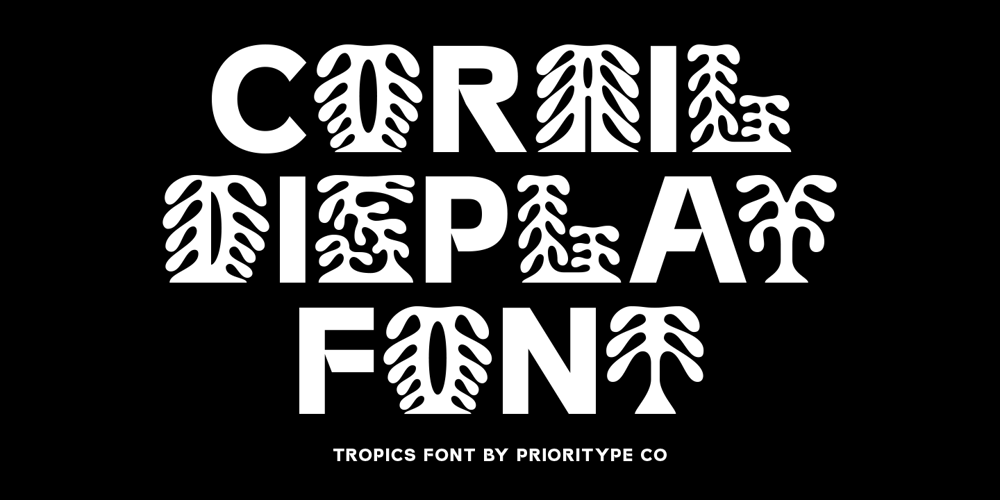
Corail Display Font Family was designed by Prio Nurokhim Aji and published by Prioritype. Corail Display contains 2 styles and family package options. Corail Display Font – Tropics FontThe typeface is inspired by the shape of coral and combined with sans serif display letters inside. Two styles available (Regular & Outline). Great for poster designs, merchandise, logos and more. Enjoy your type of Game!Features: Uppercase, Lowercase, Numeral, Punctuation & Multilingual.Multilingual contained: Afrikaans, Albanian, Asu, Basque, Bemba, Bena, Breton, Catalan, Chiga, Cornish, Danish, Dutch, English, Estonian, Filipino, Finnish, French, Friulian, Galician, German, Gusii, Indonesian, Irish, Italian, Kabuverdianu, Kalenjin, Kinyarwanda, Luo, Luxembourgish, Luyia, Machame, Makhuwa-Meetto, Makonde, Malagasy, Manx, Morisyen, North Ndebele, Norwegian Bokmål, Norwegian Nynorsk, Nyankole, Oromo, Portuguese, Quechua, Romansh, Rombo, Rundi, Rwa, Samburu, Sango, Sangu, Scottish Gaelic, Sena, Shambala, Shona, Soga, Somali, Spanish, Swahili, Swedish, Swiss German, Taita, Teso, Uzbek (Latin), Volapük, Vunjo, Zulu.Thanks!